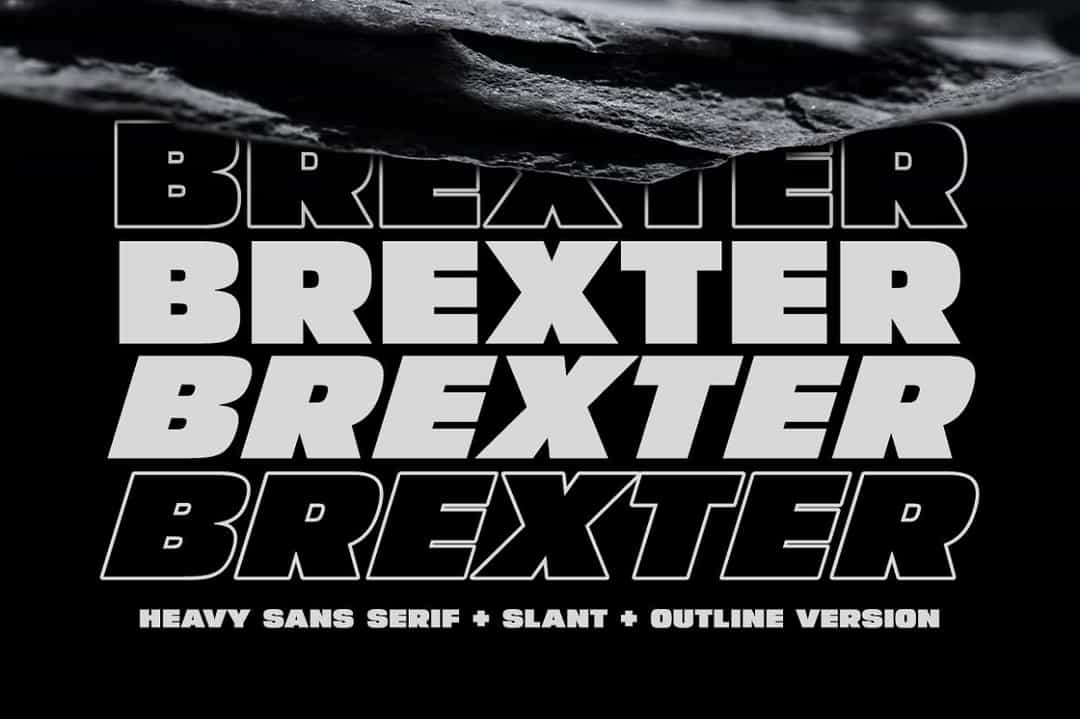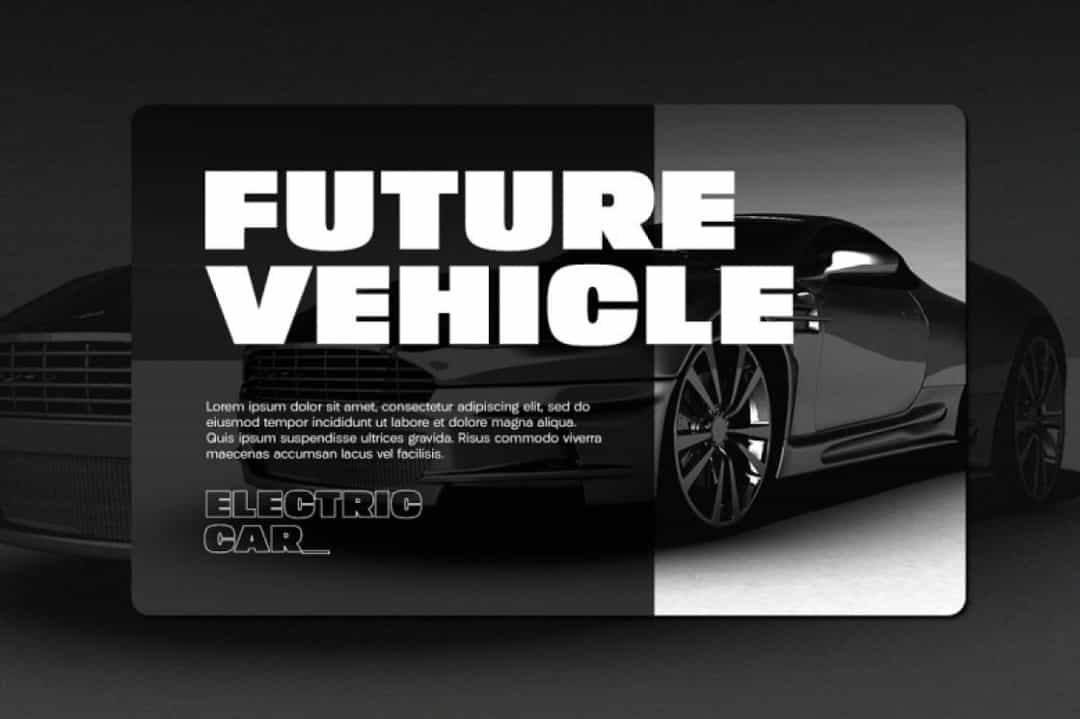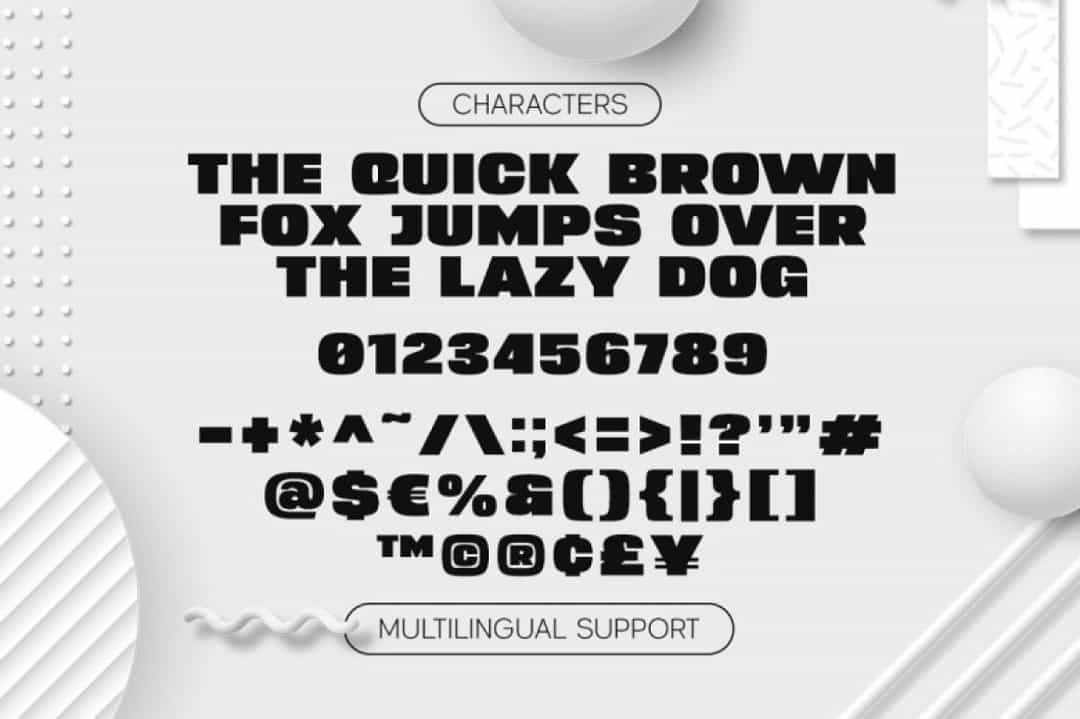
Brexter is a strong and striking Sans Serif Display Font with four styles to choose from: regular and slant, as well as outline variants. If you need an easy to read but strong font to use in headlines, logos, signage and more then Brexter could be your solution! This font was specifically created with this in mind – make an impressionful statement using it today.